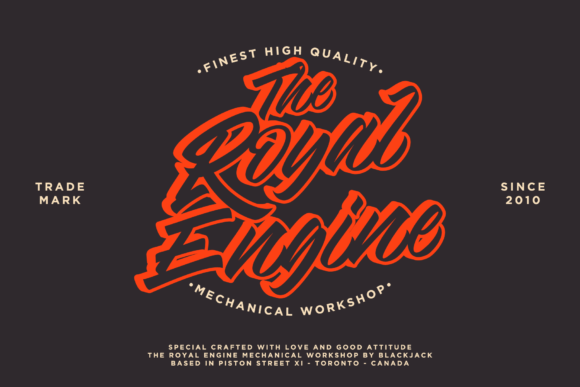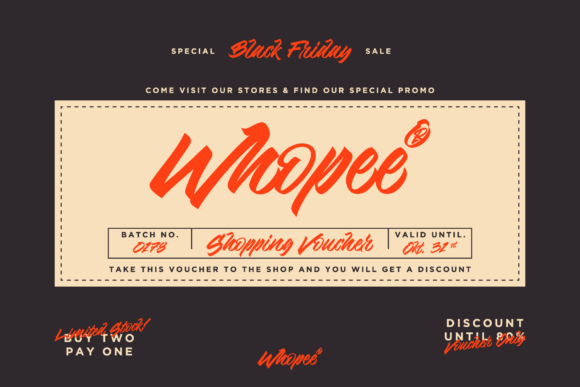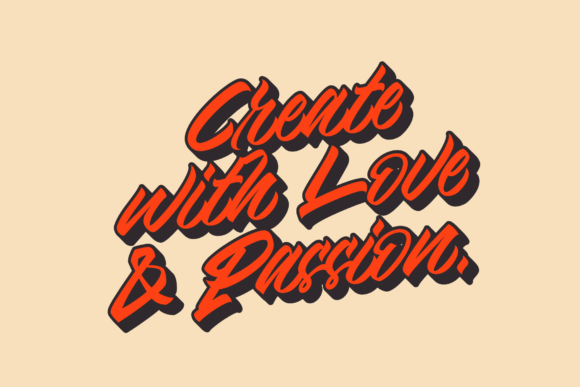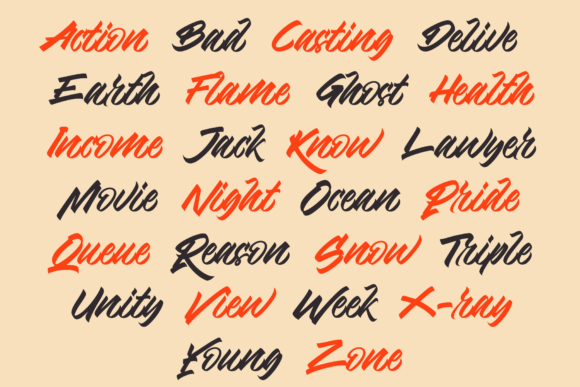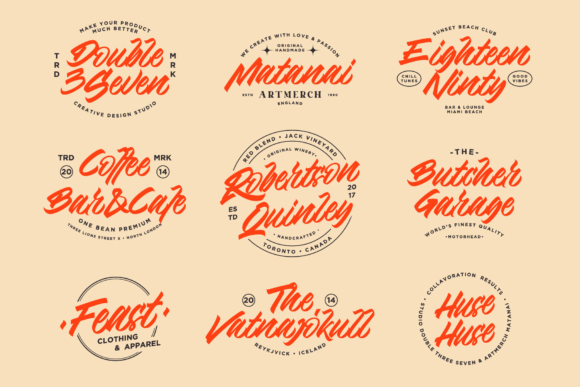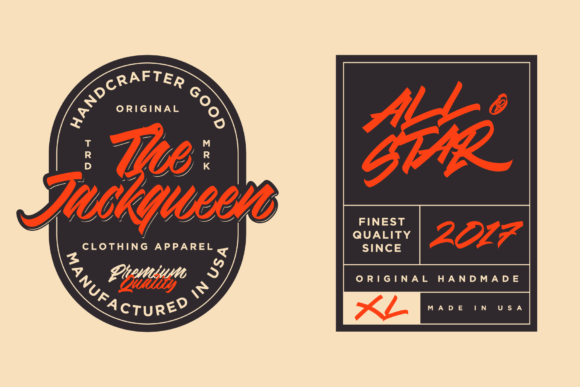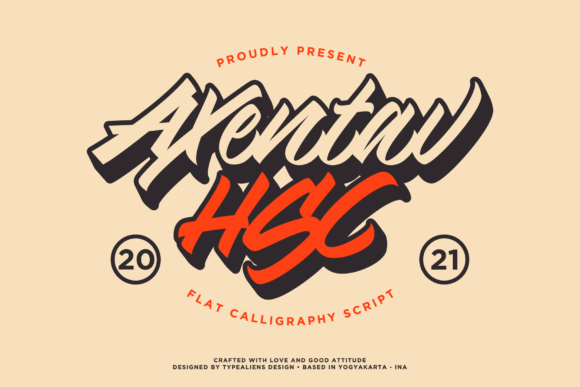
Introducing Axentav HSC Font: Elevate Your Designs with a Stylish and Bold Handwritten Touch
In the world of typography, fonts play a crucial role in conveying the tone and personality of a design. For designers and crafters looking to add a touch of sophistication and nostalgia to their projects, Axentav HSC Font is an excellent choice. This gorgeous and bold handwritten font is crafted to give your headlines and logotype projects a stylish touch, making it perfect for a wide range of design applications.
The Characteristics of Axentav HSC Font
Axentav HSC Font reads as strong, confident, and dynamic, making it an ideal choice for designers who want to make a statement. Its bold and handwritten style adds a touch of nostalgia to any design, evoking memories of classic typography. The font’s unique characteristics make it versatile and suitable for various design projects, from logos and headlines to packaging and branding.
Key Features of Axentav HSC Font
- Bold and Handwritten Style: Axentav HSC Font boasts a bold and handwritten style that adds a touch of personality to any design.
- Strong and Confident: The font’s strong and confident appearance makes it perfect for headlines, titles, and logotypes.
- Nostalgic Character: Axentav HSC Font’s classic style adds a touch of nostalgia to any design, making it ideal for projects that require a vintage or retro look.
- Versatile: The font’s versatility makes it suitable for a wide range of design applications, from digital projects to print materials.
Design Applications for Axentav HSC Font
Axentav HSC Font is perfect for designers and crafters who want to add a touch of sophistication and elegance to their projects. Here are some design applications where this font excels:
- Logos and Branding: Axentav HSC Font is ideal for creating logos, business cards, and other branding materials that require a bold and confident appearance.
- Headlines and Titles: The font’s strong and dynamic style makes it perfect for headlines, titles, and subtitles in various design projects.
- Packaging Design: Axentav HSC Font’s nostalgic character makes it suitable for packaging design projects that require a vintage or retro look.
- Digital Design: The font’s versatility makes it perfect for digital design projects, such as website headers, social media graphics, and email marketing materials.
Tips for Using Axentav HSC Font
To get the most out of Axentav HSC Font, here are some tips to keep in mind:
- Use it as a Headline Font: Axentav HSC Font is perfect for headlines and titles, so use it to grab attention and make a statement.
- Pair it with Other Fonts: Experiment with pairing Axentav HSC Font with other fonts to create a unique and visually appealing design.
- Adjust the Font Size: Adjust the font size to create visual hierarchy and emphasize important information.
- Experiment with Colors: Try out different colors to find the perfect combination that complements your design.
Axentav HSC Font is a stunning and bold handwritten font that can elevate your designs with a stylish touch. Its strong, confident, and dynamic style makes it perfect for a wide range of design applications, from logos and headlines to packaging and branding. With its nostalgic character and versatility, Axentav HSC Font is an excellent choice for designers and crafters looking to add a touch of sophistication and elegance to their projects.